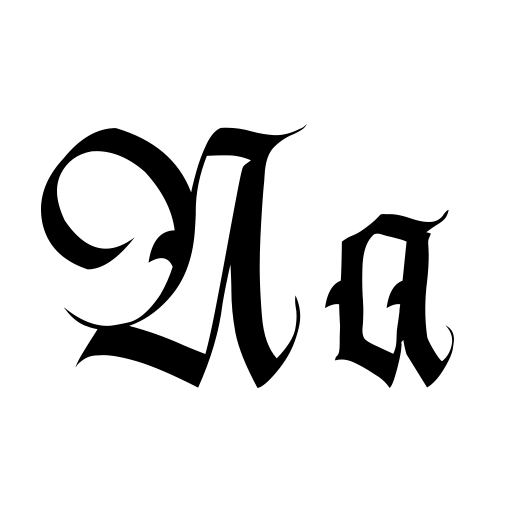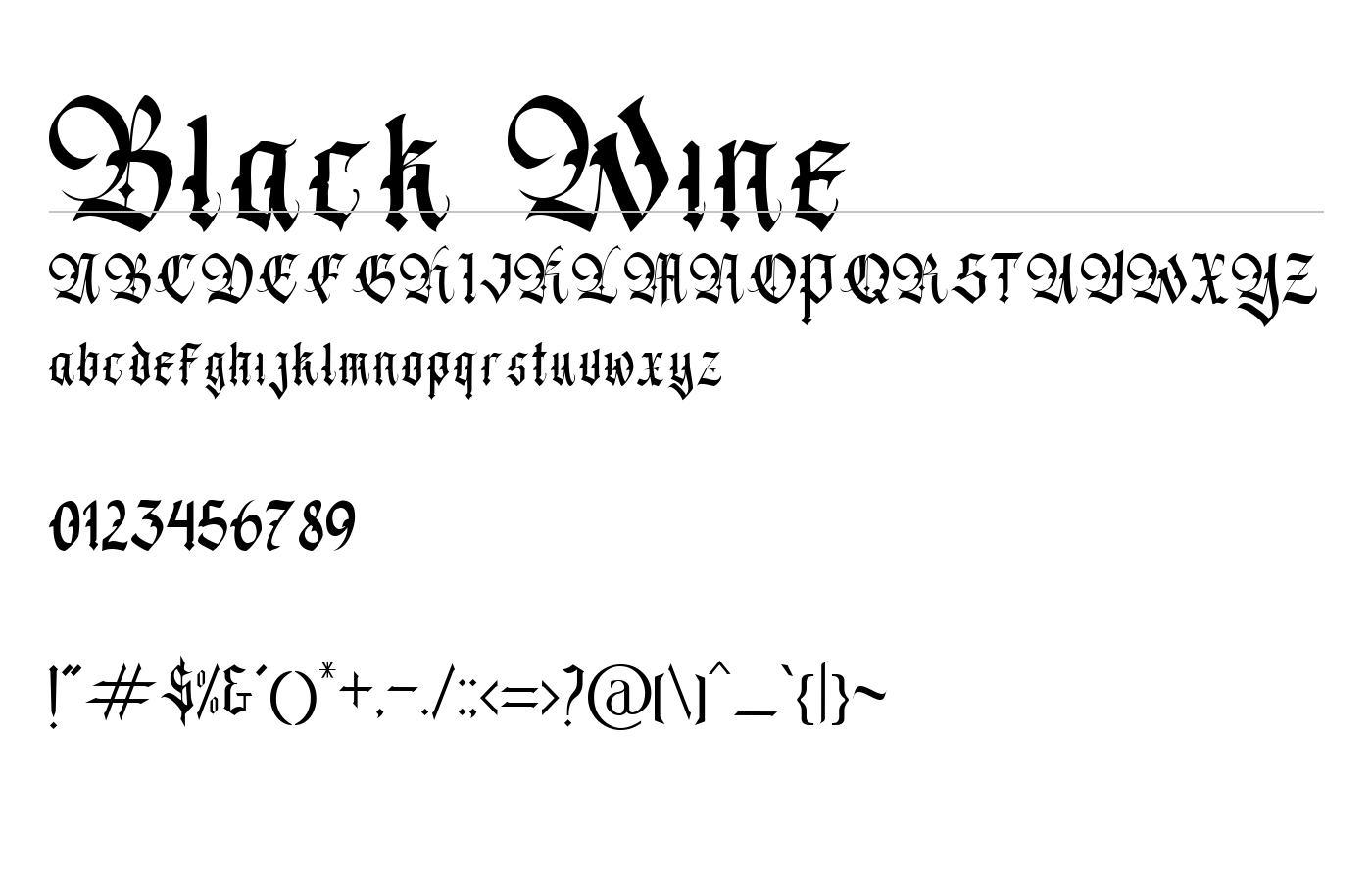
Black Wine Font is a bold blackletter typeface with sharp, angular strokes and a dramatic contrast between thick and thin lines. Its ornate, gothic style gives it a vintage and formal character, making it perfect for striking headlines, logos, or branding that seeks a traditional or medieval aesthetic. This font works best in display settings where its intricate details can be fully appreciated.
Black Wine Font
About Black Wine Font